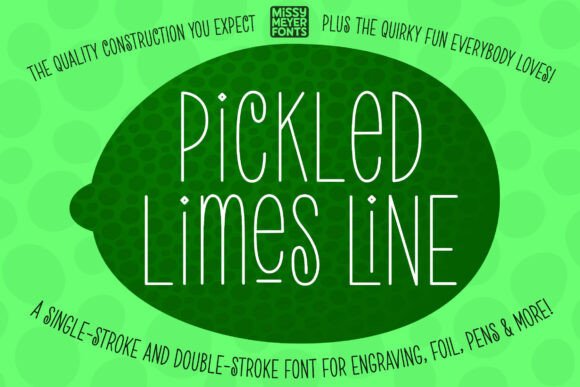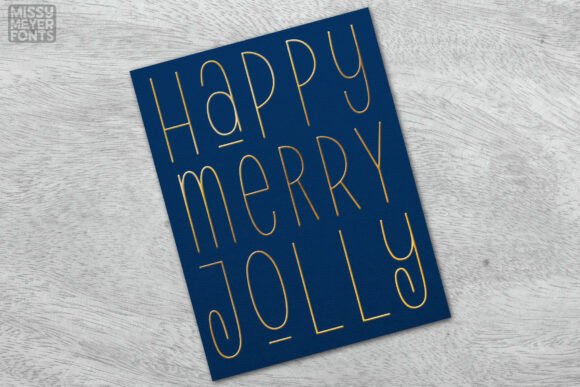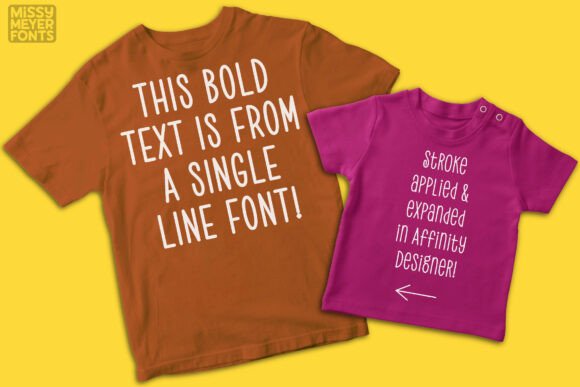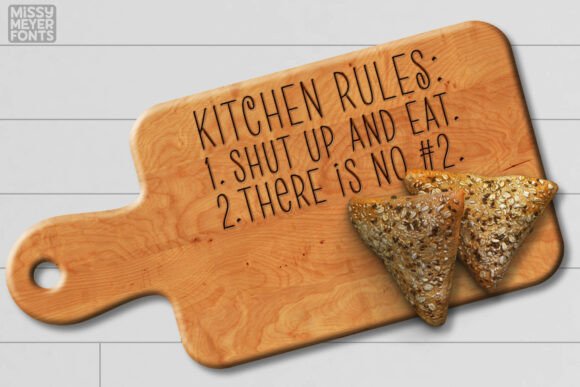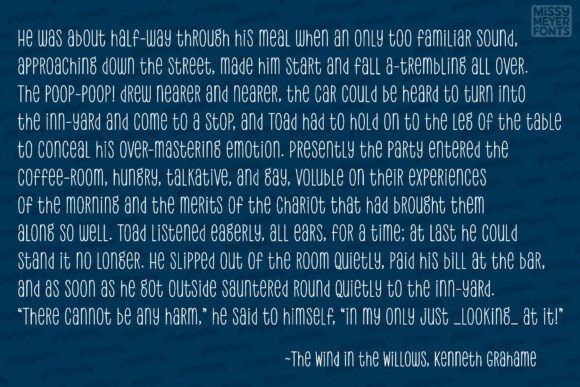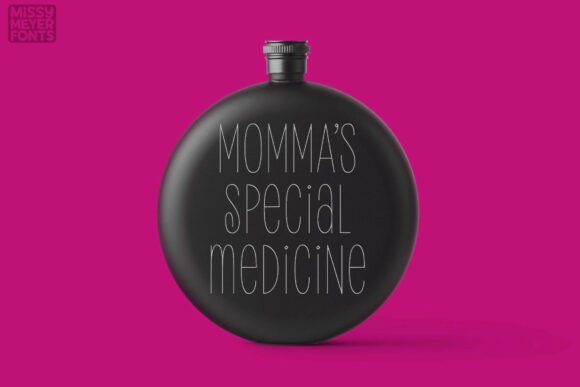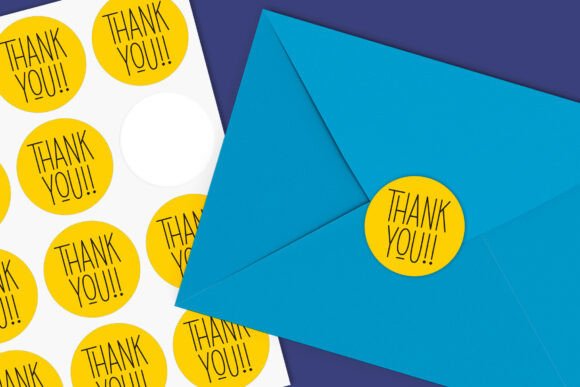
Pickled Limes Line Font
Pickled Limes Line is a playful single-line font derived from the original Pickled Limes outline typeface. Featuring a tall, narrow handwritten style, it adds a fun and quirky touch to a wide range of creative projects—perfect for greeting cards, personalized gifts, jewelry engraving, cutting boards, and more.
Designed specifically for drawing-based tools, this font is not intended for traditional printing or word processing. Instead, it’s ideal for use with:
Sketch pens
Foil quills
Engraving tools
Infusible ink pens
Glowforge scoring
Any stylus or nib that draws with a single stroke rather than producing filled letterforms.
Pickled Limes Line includes both single-stroke and double-stroke versions to accommodate different software capabilities and machine requirements.